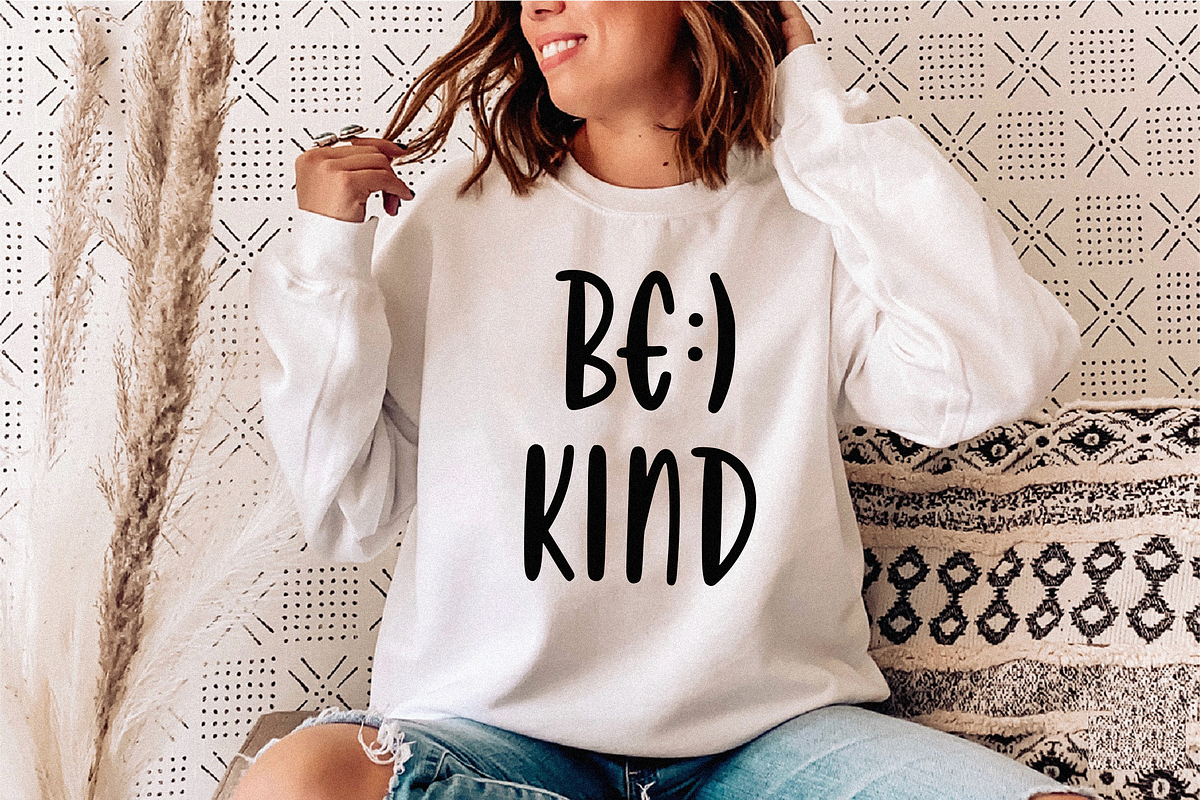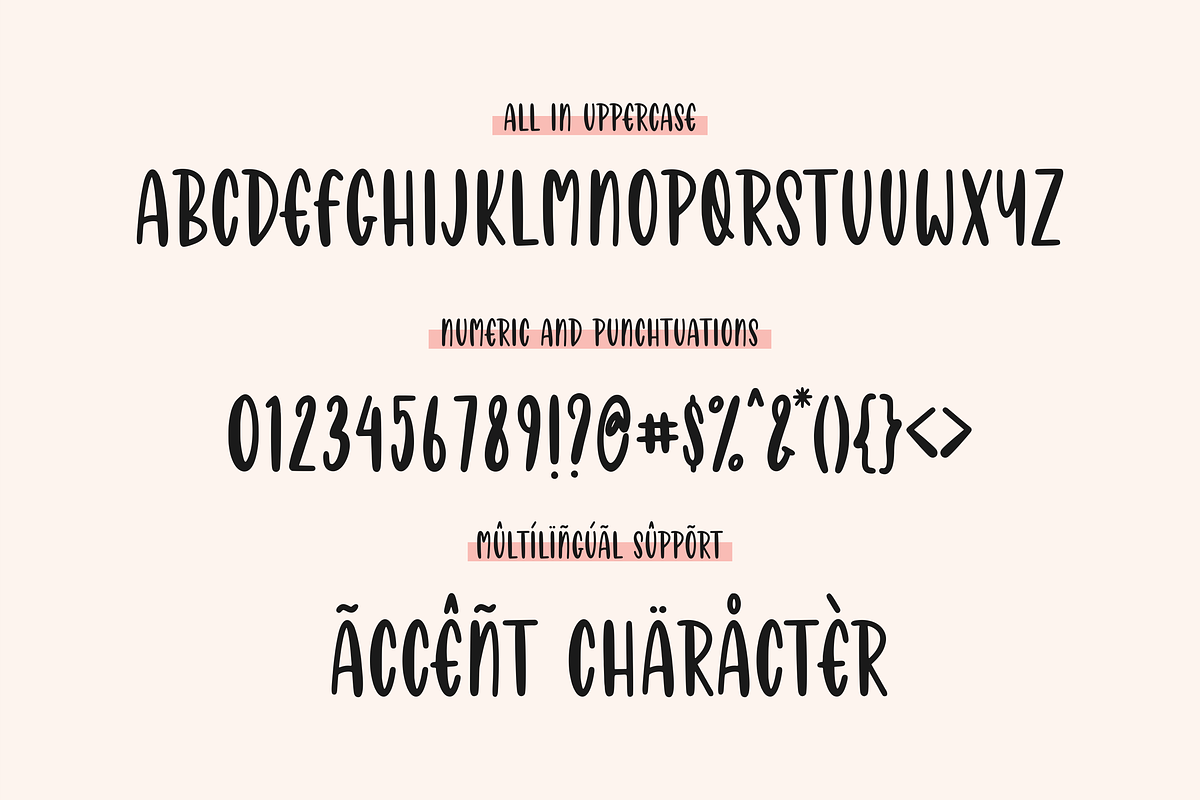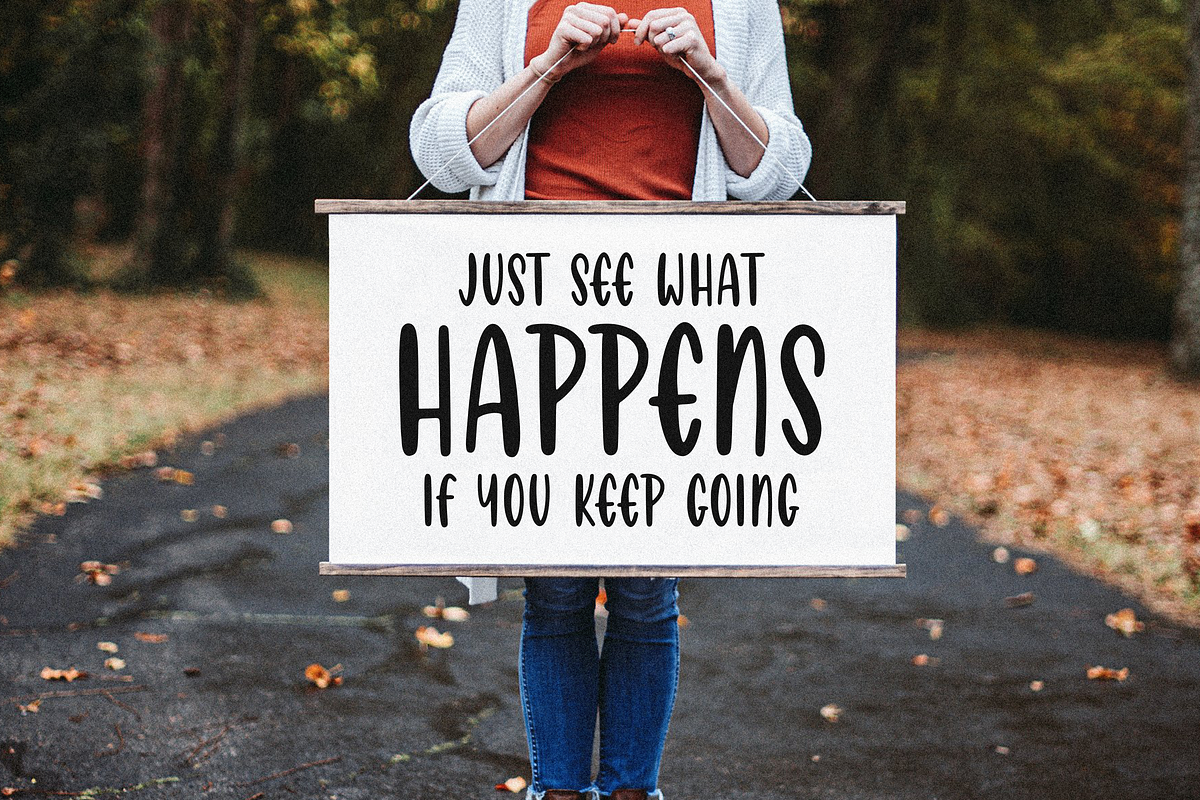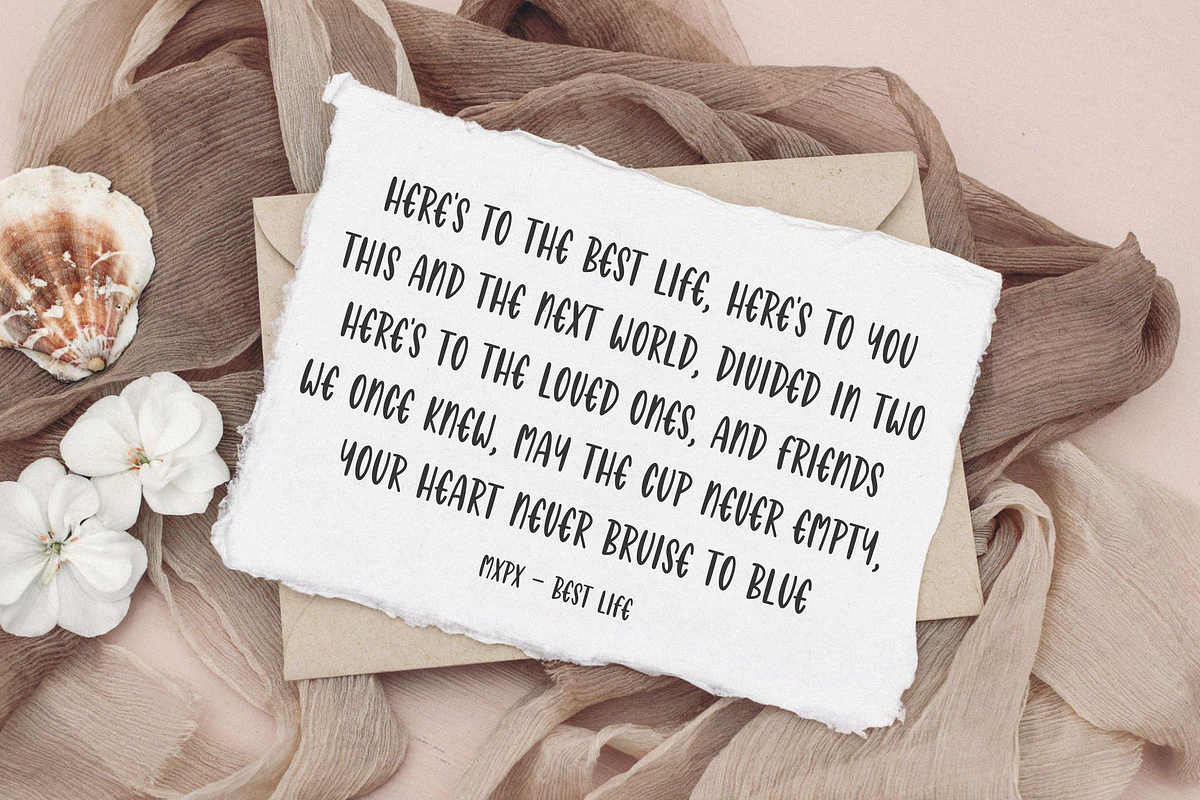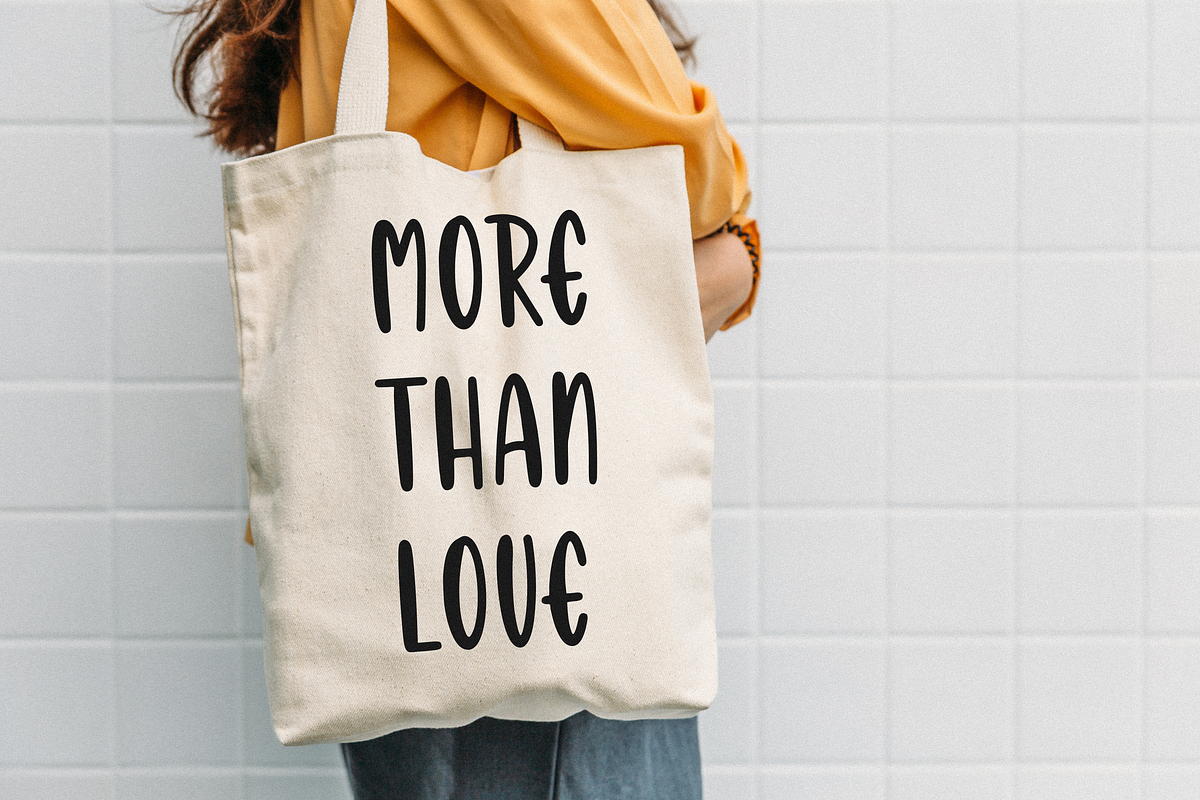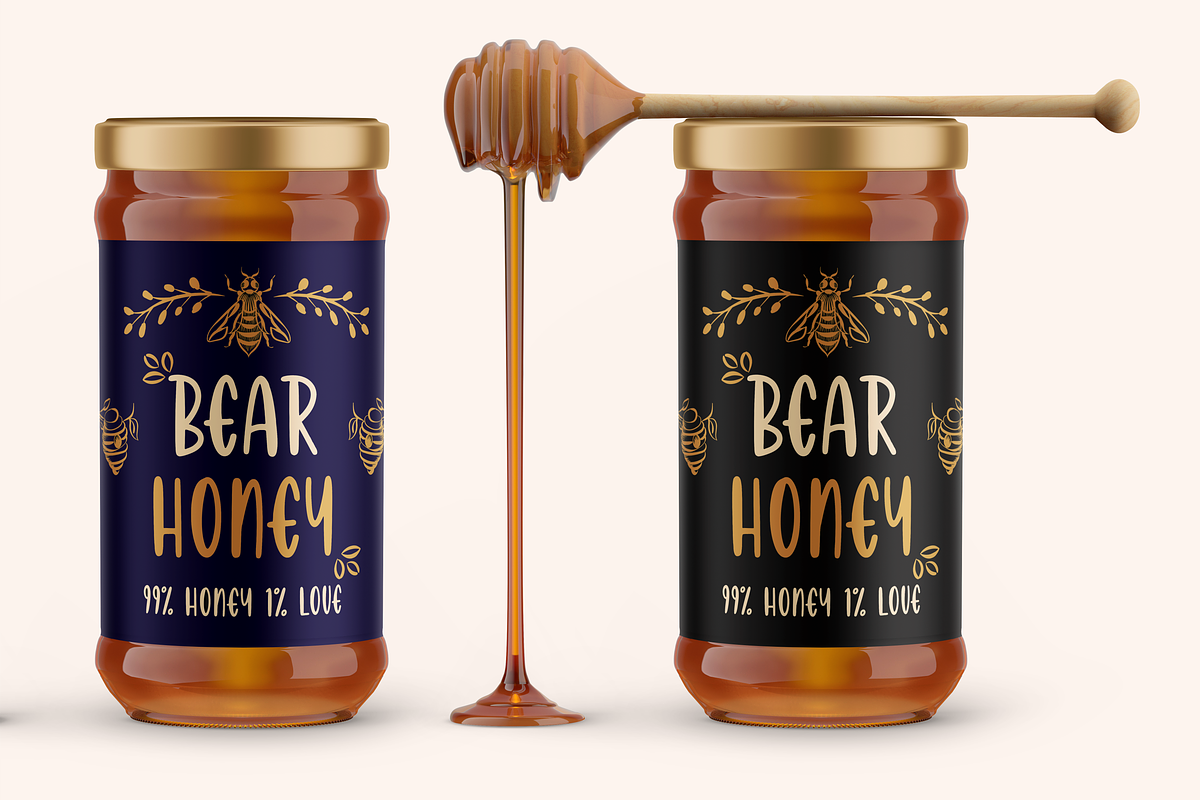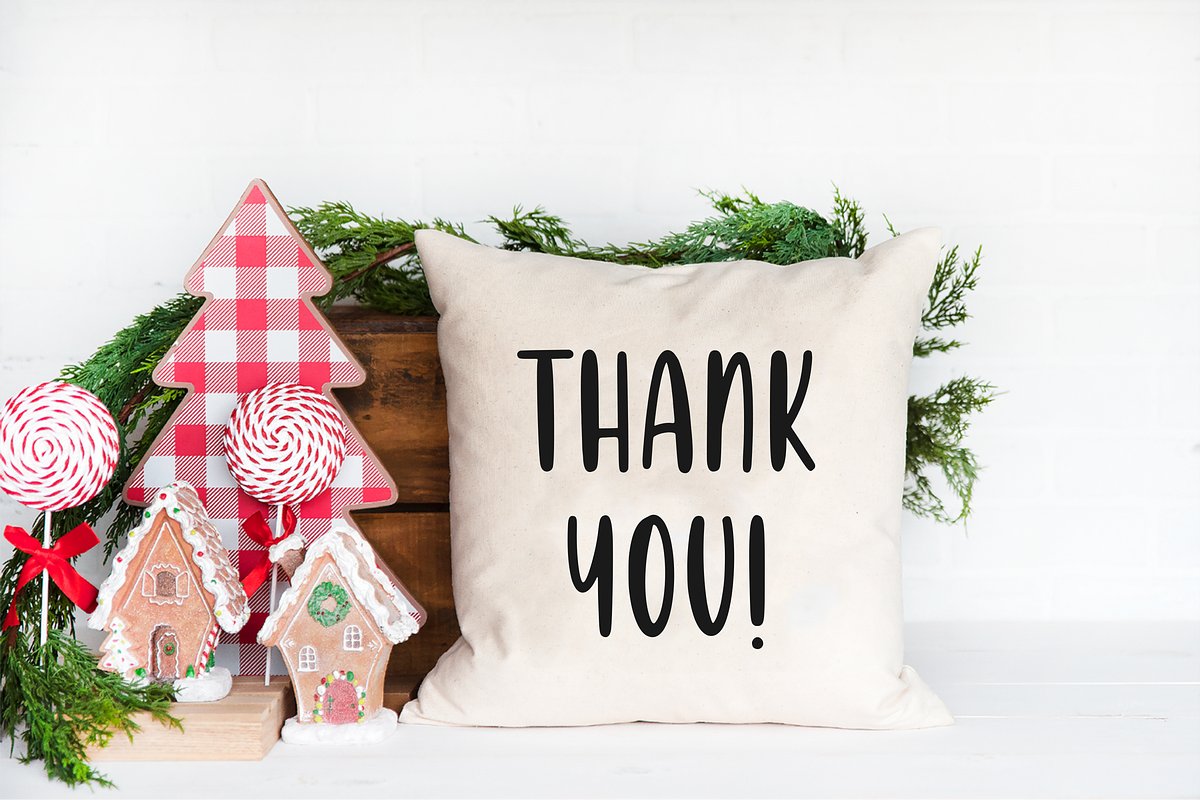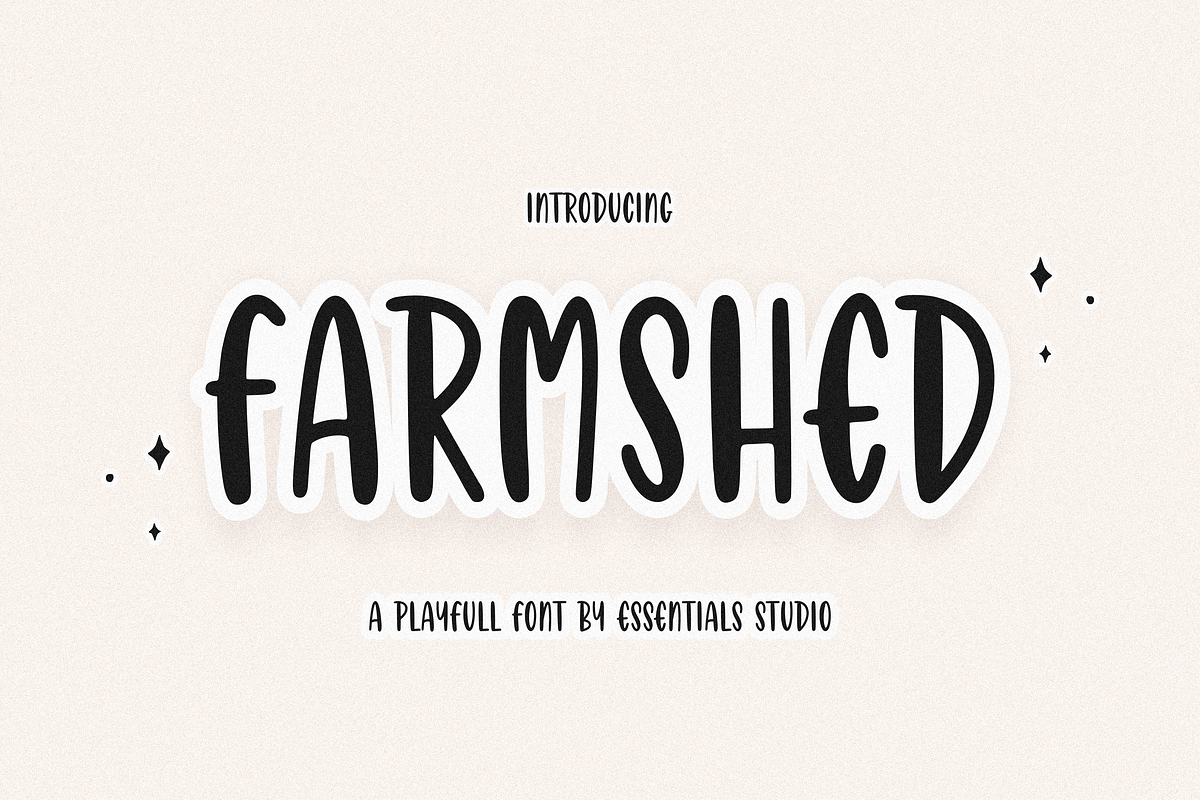
FARMSHED
Introducing by Essentials Studio
Proudly Present, FARMSHED
FARMSHED Is a A Handwriting Playfull Fonts FARMSHED is perfect for product packaging, branding project, megazine, social media, wedding, or just used to express words above the background.